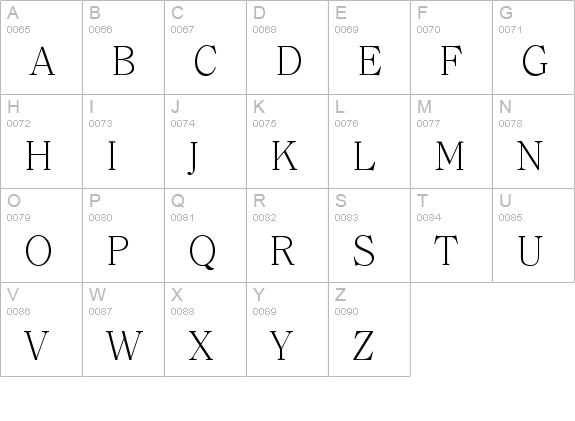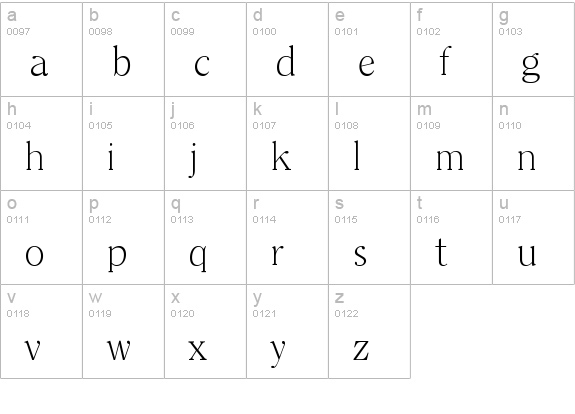
Clerface-Xlight Font Details
Clerface-Xlight font is a delicate and elegant typeface that exudes a sense of sophistication and modernity. Its ultra-light weight makes it perfect for adding a touch of subtlety and refinement to any design project. The slender strokes and graceful curves of this font create a sense of airiness and elegance, making it ideal for use in fashion, beauty, and luxury branding. What makes Clerface-Xlight font even more appealing is that it is completely free to download. You can easily access this stunning typeface at FontsMarket.com, where you can unleash your creativity and elevate your design projects with this beautiful font. Whether you're working on a website, a poster, a logo, or any other design project, Clerface-Xlight font is sure to add a touch of sophistication and style. Download it today and see how it can enhance your creative projects.